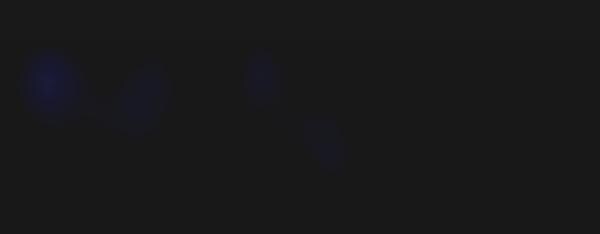
The Nebula Font is out of this world typography. A stunning, celestial design, it is inspired by the cloud of gases found in space. Although the Nebula Font has been set within the parameters of scientific thought, there is also something quite magical about each letter. It even looks like the substance that could be emitted from a wand after casting a spell in Harry Potter.
Conceived and created by Rome-based graphic designer Mauro De Donatis, the Nebula Font is quite haunting. The deep blues and purples blend together beautifully to create an ethereal and surreal presence. The Nebula Font is the next natural progression of the fiery fonts designed by Ruslan Khasanov.
Stellar Celestial Typography
Mauro De Donatis' Nebula Font is Out of This World